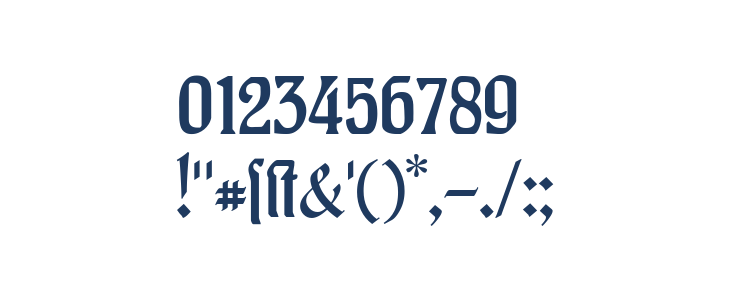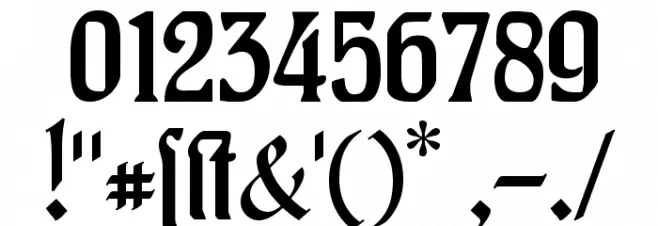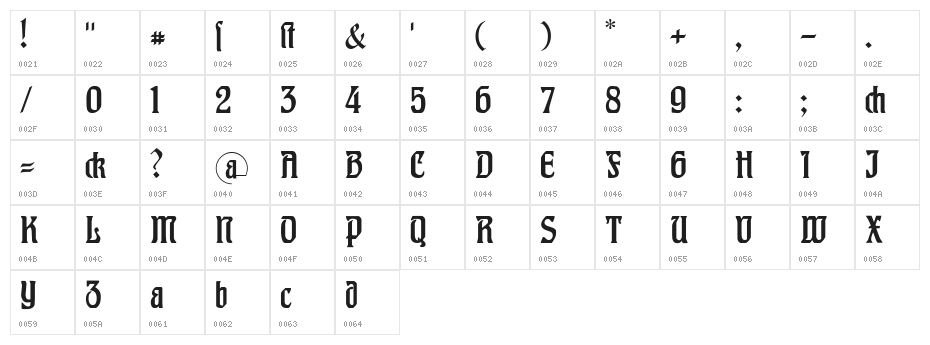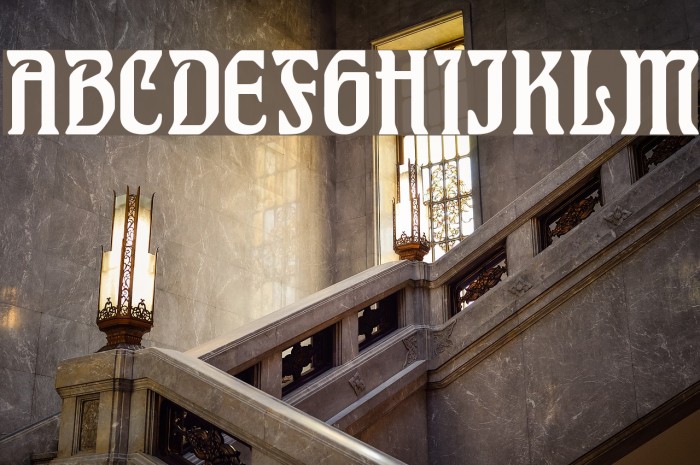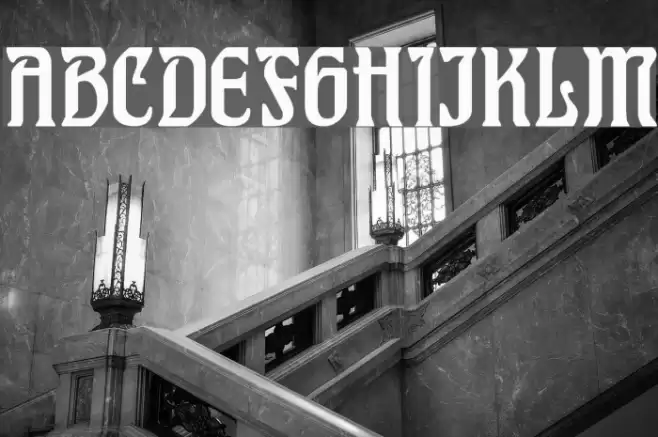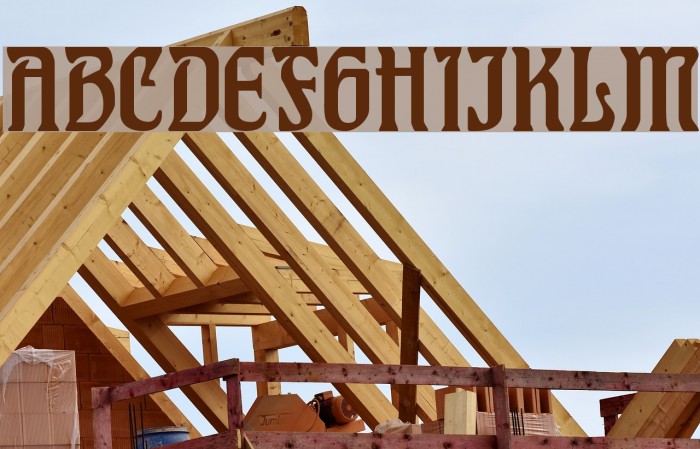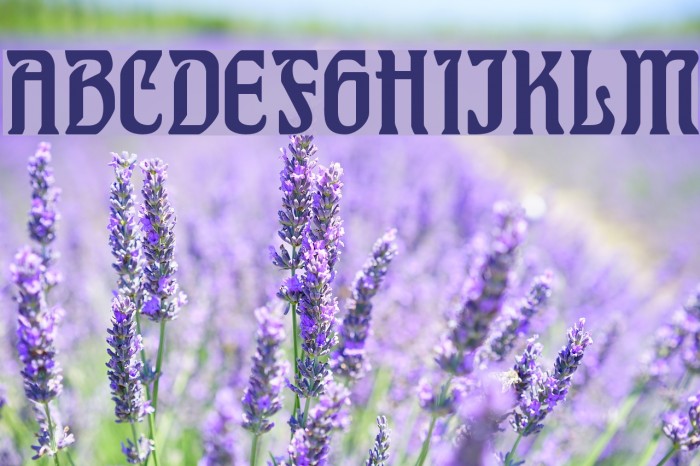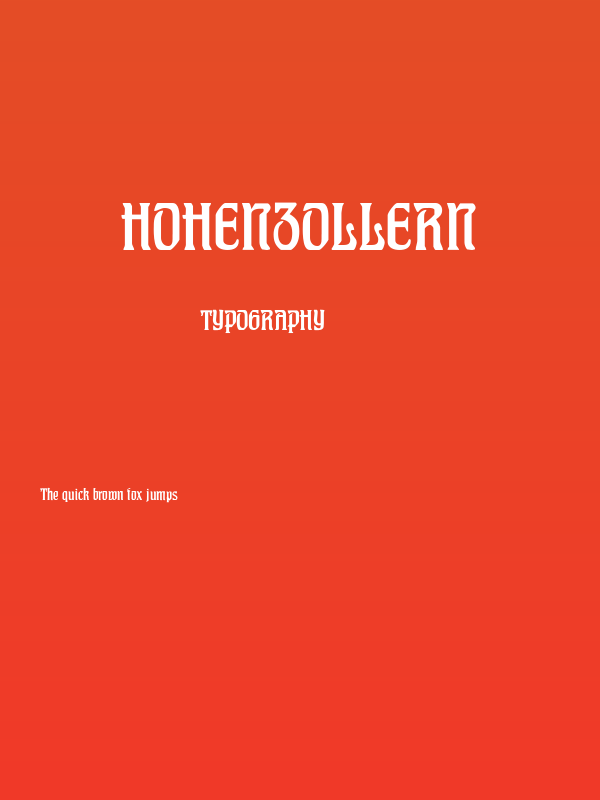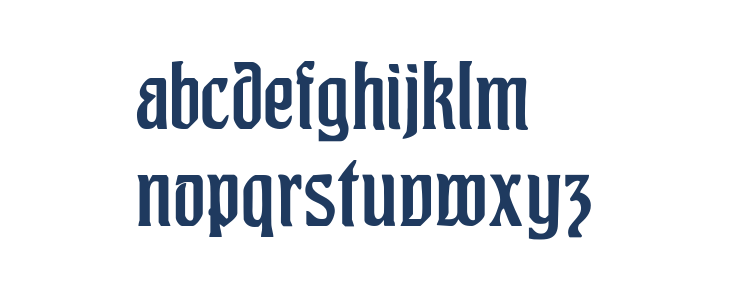
Hohenzollern Font
Hohenzollern Description
This font exhibits a classic blackletter style, characterized by its ornate and intricate letterforms. The uppercase letters are bold and angular, with sharp serifs and a distinct medieval aesthetic. The lowercase letters maintain a similar style, with elongated vertical strokes and decorative elements that enhance the overall gothic appearance. The numerals are consistent with the font's theme, featuring unique curves and angles. Special characters are designed to match the elaborate style, making this font suitable for projects that require a historical or traditional feel.
Overall StyleVintage
Proposed ProjectsIdeal for historical documents, invitations, book covers, or any project seeking a traditional or gothic aesthetic.